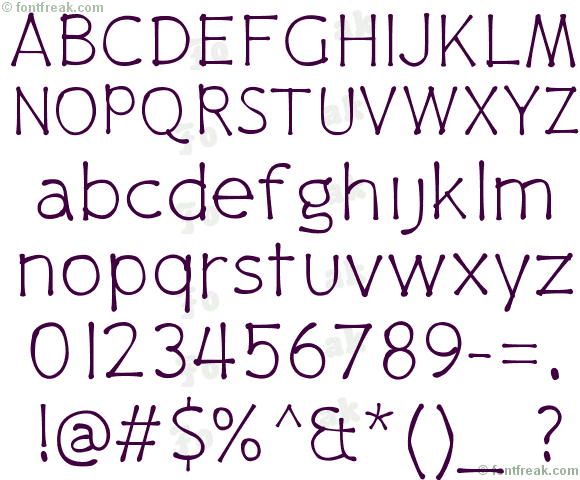
PajamaPantsLight
PajamaPantsLight by Shara Weber is a delightful handwritten font that captures a playful and casual essence. Characterized by its light stroke weight and relaxed style, this font conveys a sense of informality and warmth, making it an excellent choice for various creative projects. The strokes are smooth and even, with subtle curves that add a touch of whimsy to each character. The spacing is generous, allowing for easy readability, which enhances its appeal for both digital and print applications.
This font is particularly well-suited for a range of use cases, including children's book covers, where its friendly appearance invites young readers. It's also ideal for crafting charming wedding invitations, where couples can express their unique personalities through a relaxed yet elegant typeface. Additionally, PajamaPantsLight works wonderfully for branding materials for small businesses, particularly those in the creative or lifestyle sectors, as it conveys a sense of approachability. Content creators seeking to add a personal touch to their blogs or social media posts will find this font to be a valuable asset.
The target audience for PajamaPantsLight includes graphic designers looking for unique typefaces to enhance their work, small business owners who want to stand out with their branding, and content creators aiming for a relatable aesthetic.